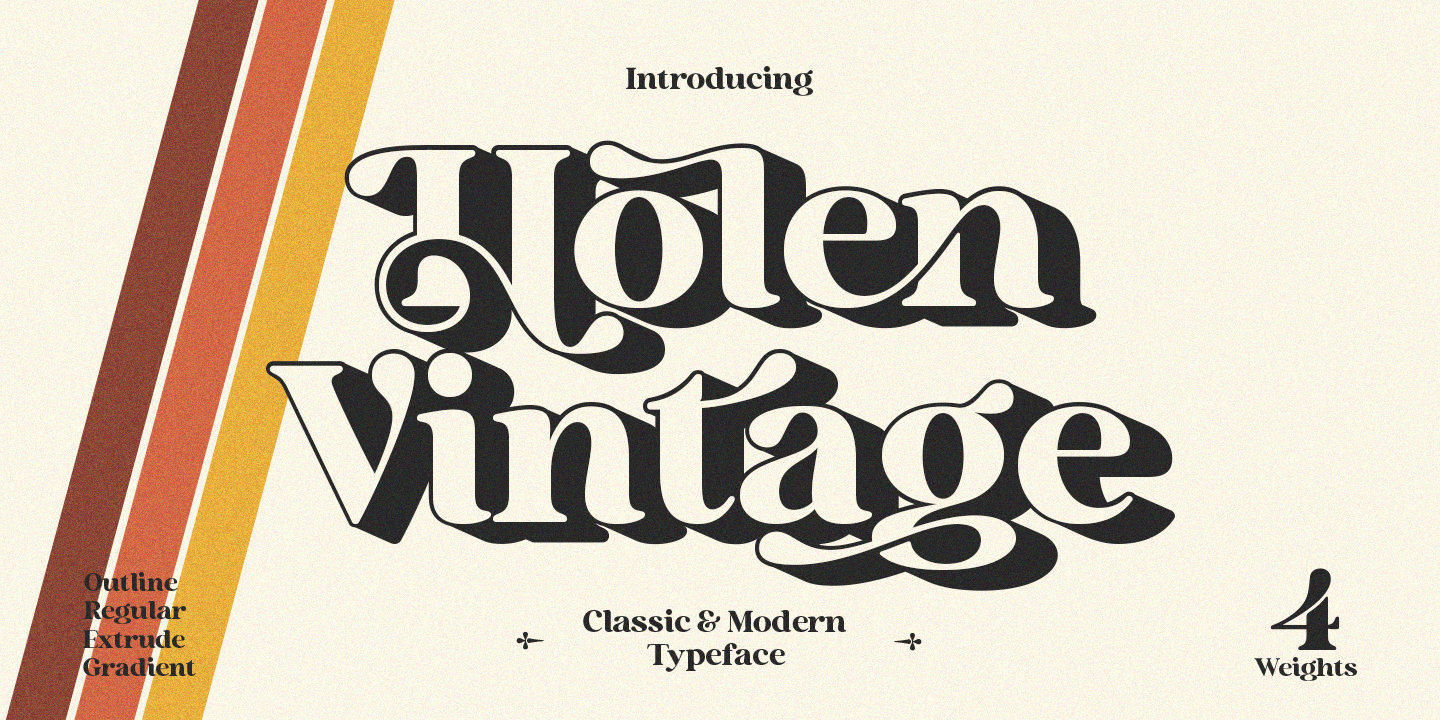
Holen Vintage Font is ideal for antique shop branding, vintage clothing boutiques, retro advertising campaigns, nostalgic poster designs, classic car show materials, heritage museum displays, traditional craft breweries, vintage photography studios, retro diner signage, old-fashioned barbershops, classic Americana projects, and authentic period communications. This distinguished typeface brings timeless vintage charm to projects requiring nostalgic authenticity and classic American heritage.
What makes Holen Vintage Font so exciting is its masterful ability to transport audiences back to the golden age of American design through authentically weathered letterforms that capture the enduring charm and honest craftsmanship of bygone eras. The font features carefully aged characters with vintage proportions and period-accurate details that mirror the trusted reliability and timeless appeal of classic American typography from the mid-20th century. Its nostalgic character conveys heritage and authenticity while maintaining excellent readability, making it perfect for brands seeking to communicate vintage quality, American tradition, and the enduring values of classic craftsmanship with genuine period authenticity.
The Holen Vintage Font family includes multiple aged weights and period-inspired variations that showcase its vintage character while providing comprehensive design flexibility for various retro and heritage applications. Each variant maintains the original's nostalgic charm while offering extensive options for creating authentic typographic compositions that celebrate American heritage and vintage craftsmanship.
Whether you're developing heritage brand identities, creating vintage marketing materials, or designing nostalgic communications, Holen Vintage Font Free Download offers the perfect combination of vintage authenticity and contemporary functionality. This exceptional typeface brings genuine American heritage to design projects, making it an indispensable choice for designers seeking typography that effectively communicates vintage charm, classic quality, and the timeless appeal of authentic American vintage design with genuine period character.